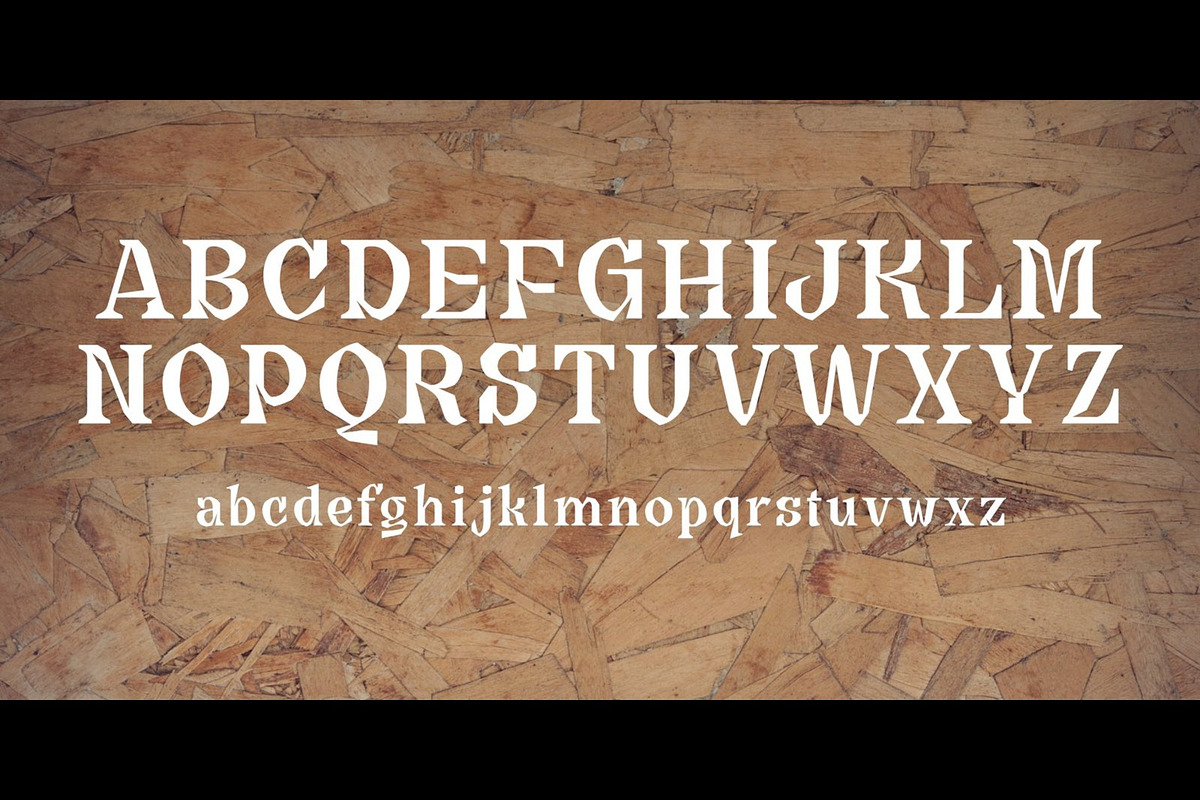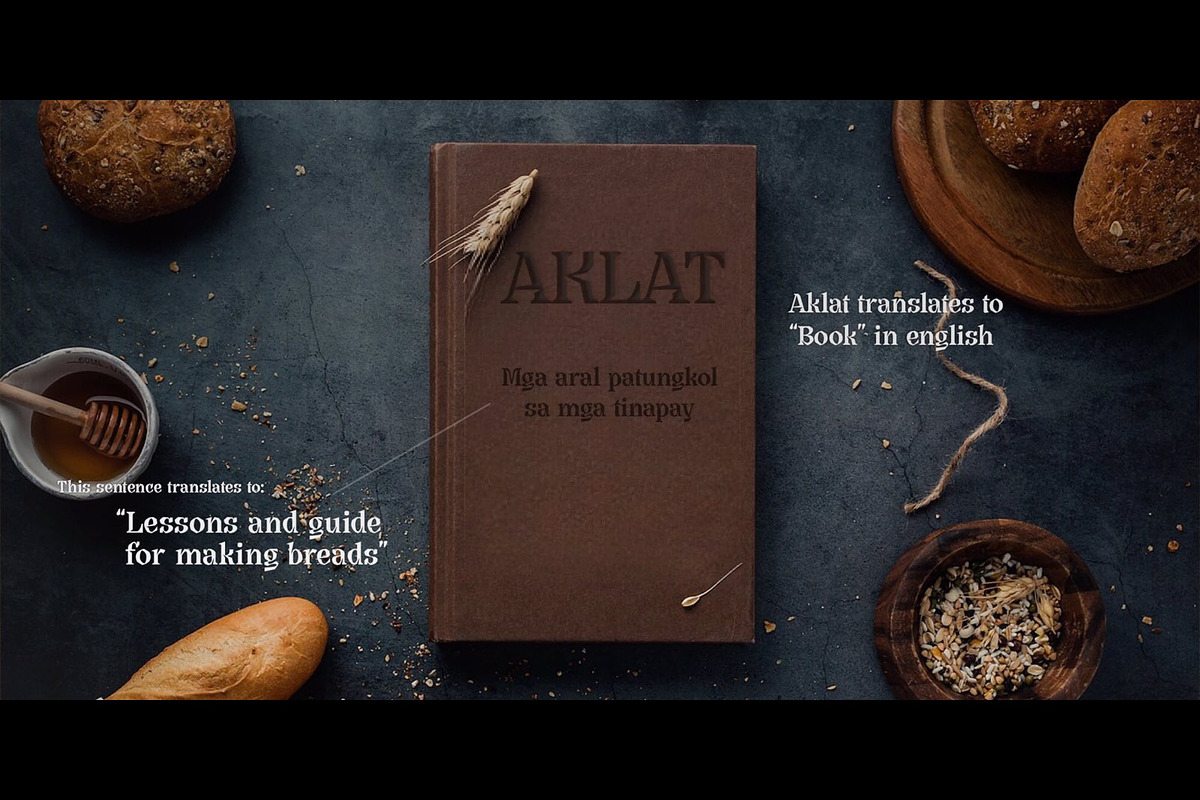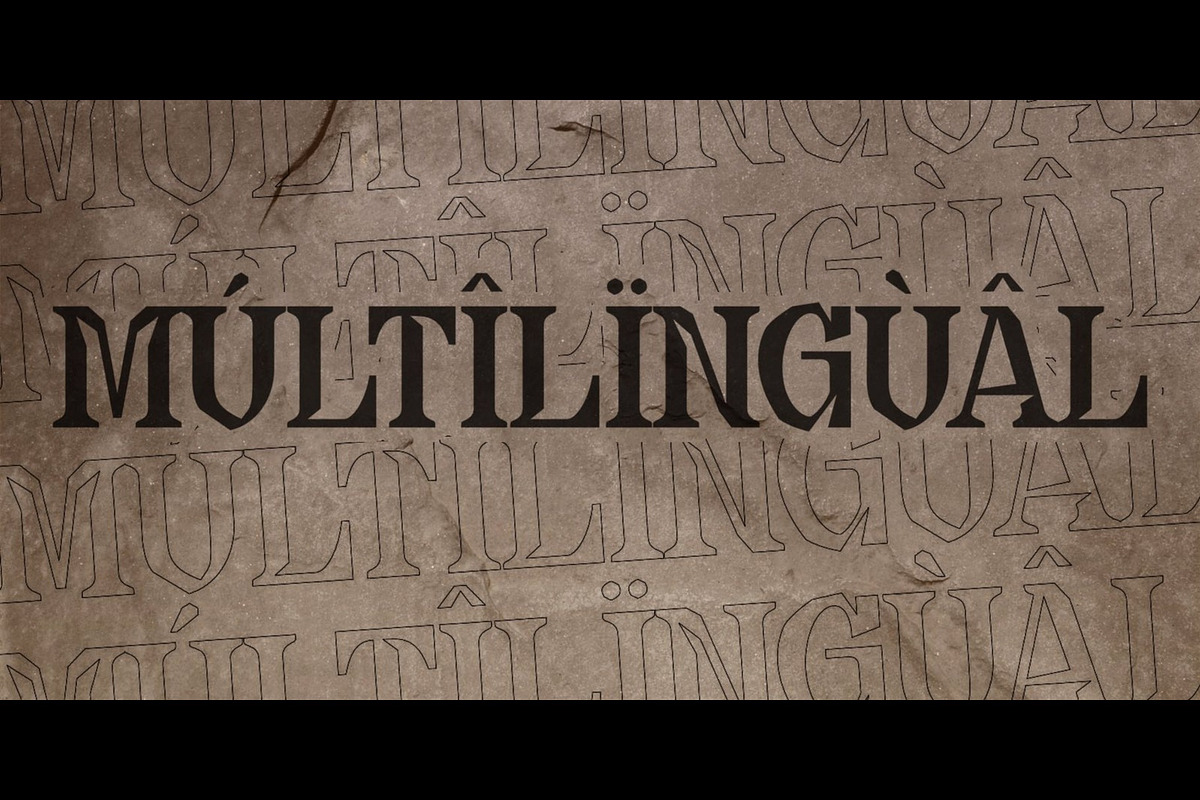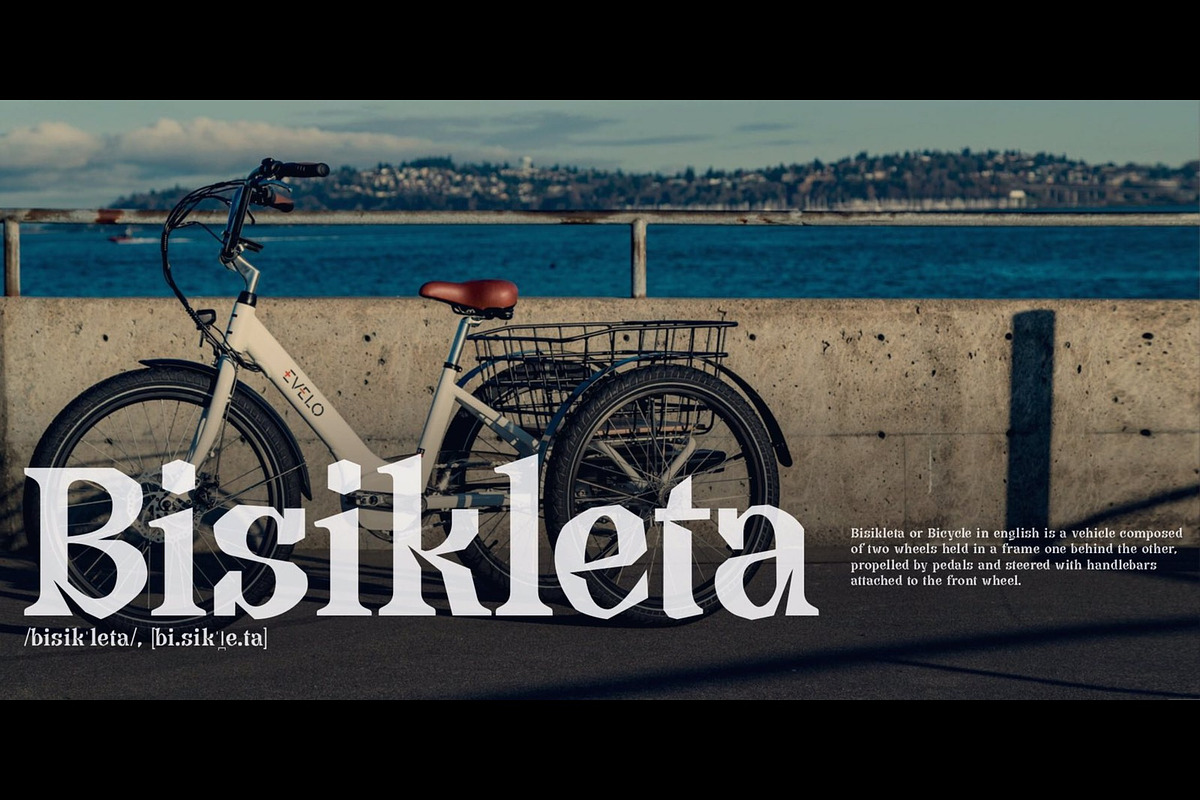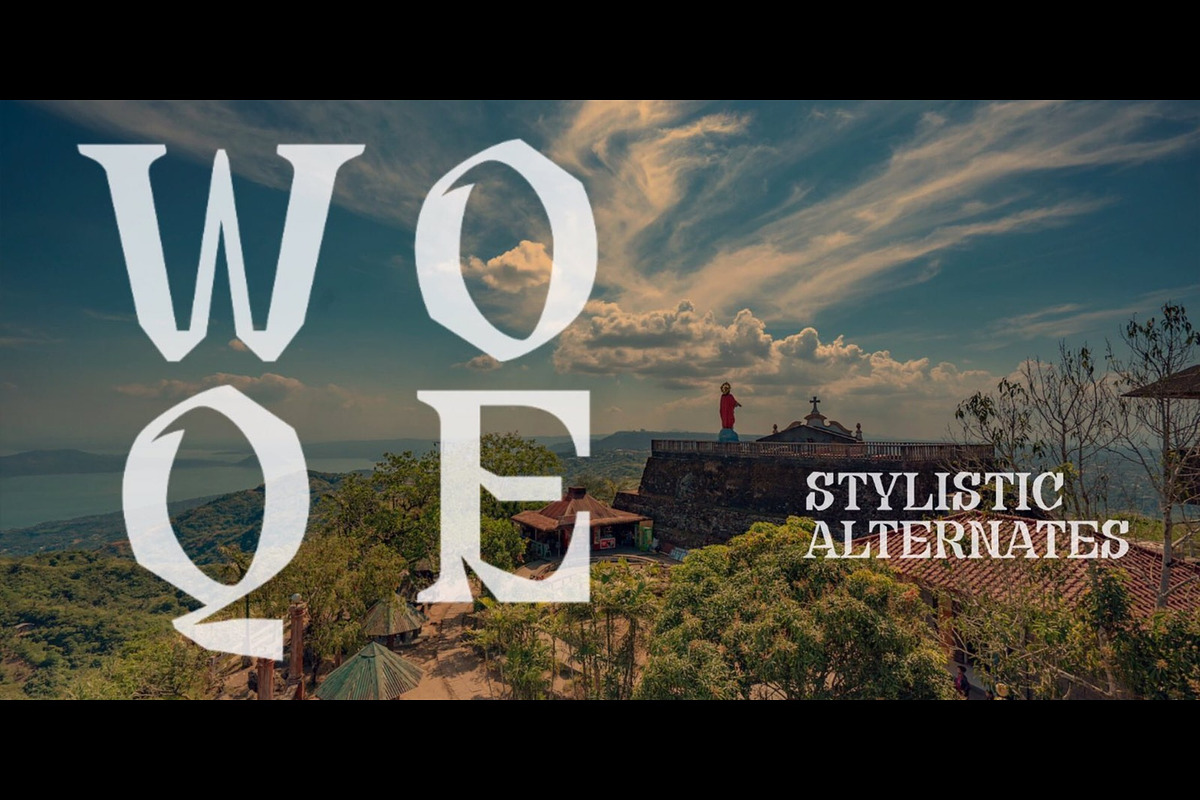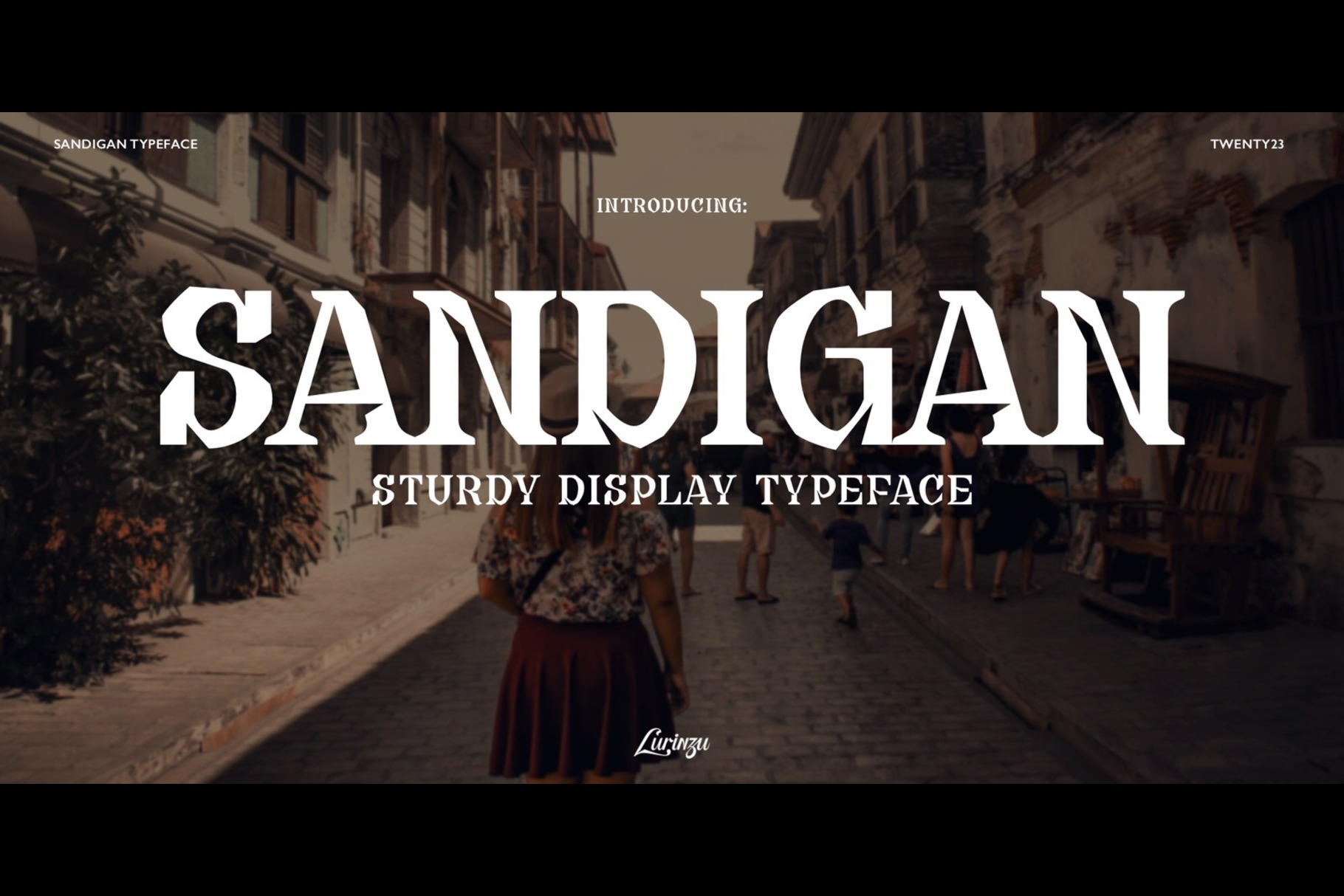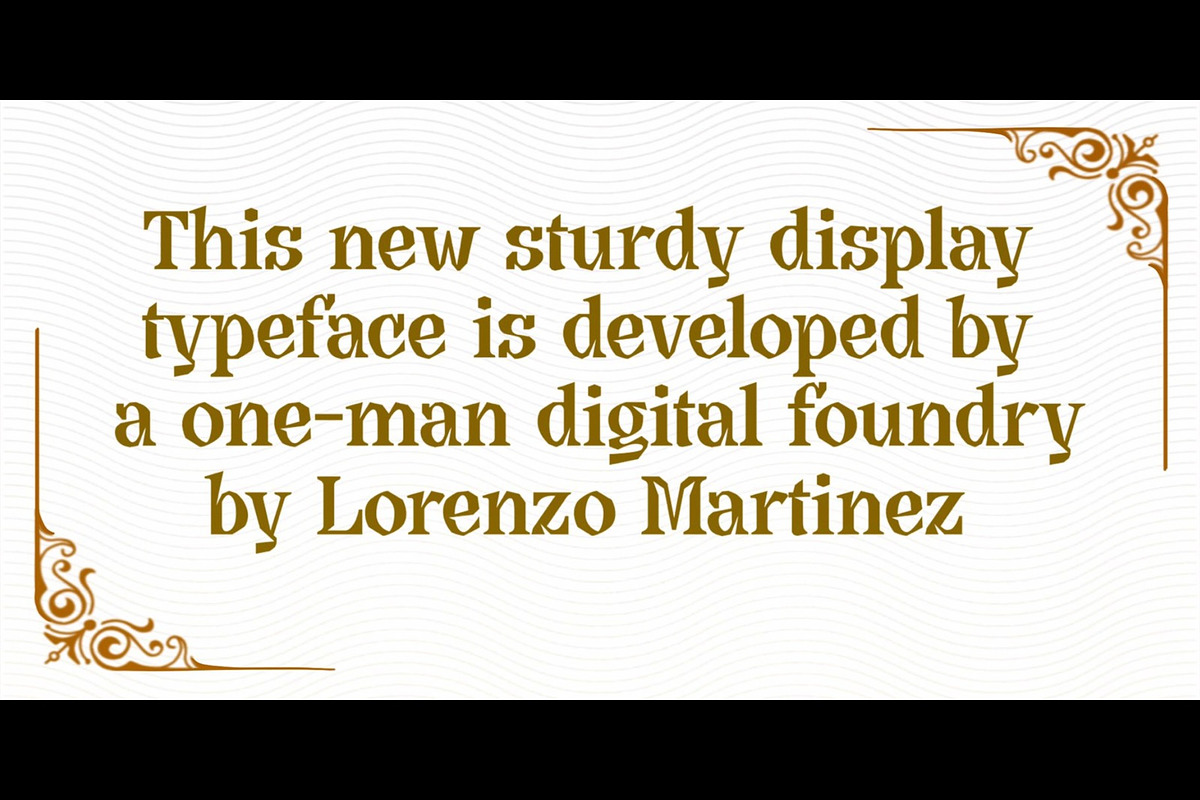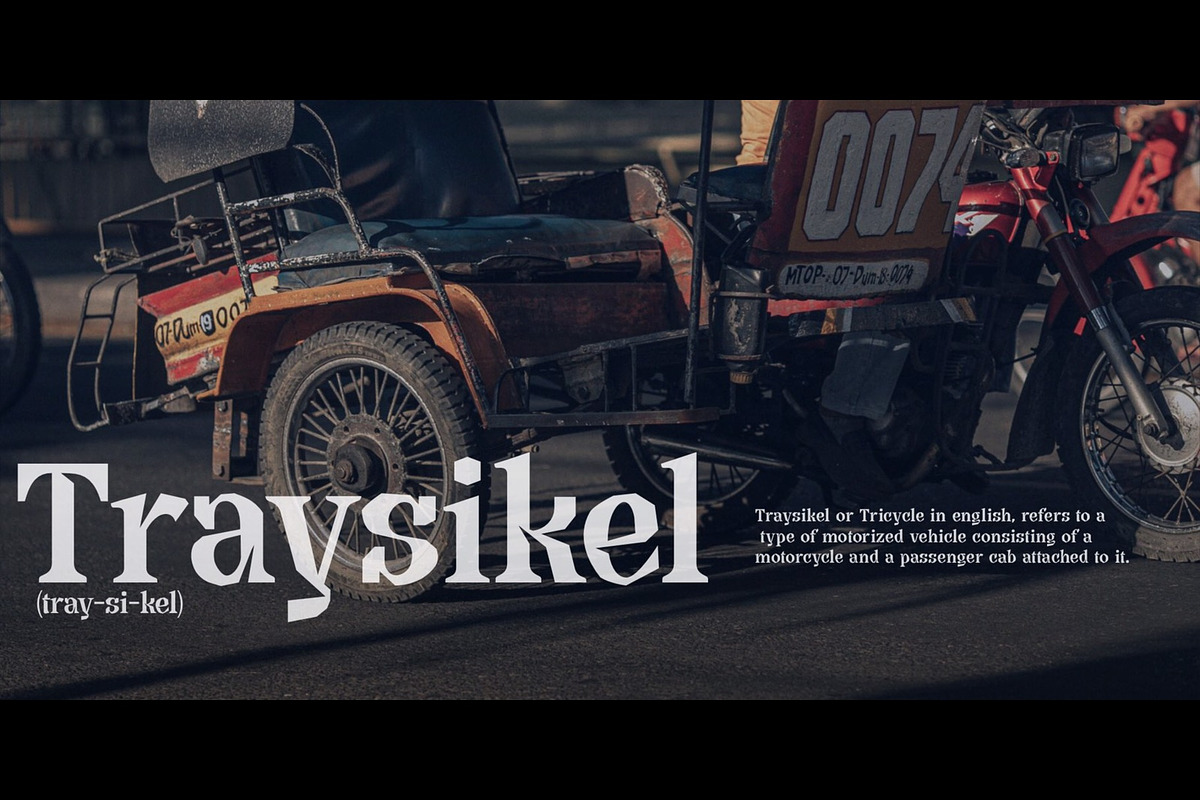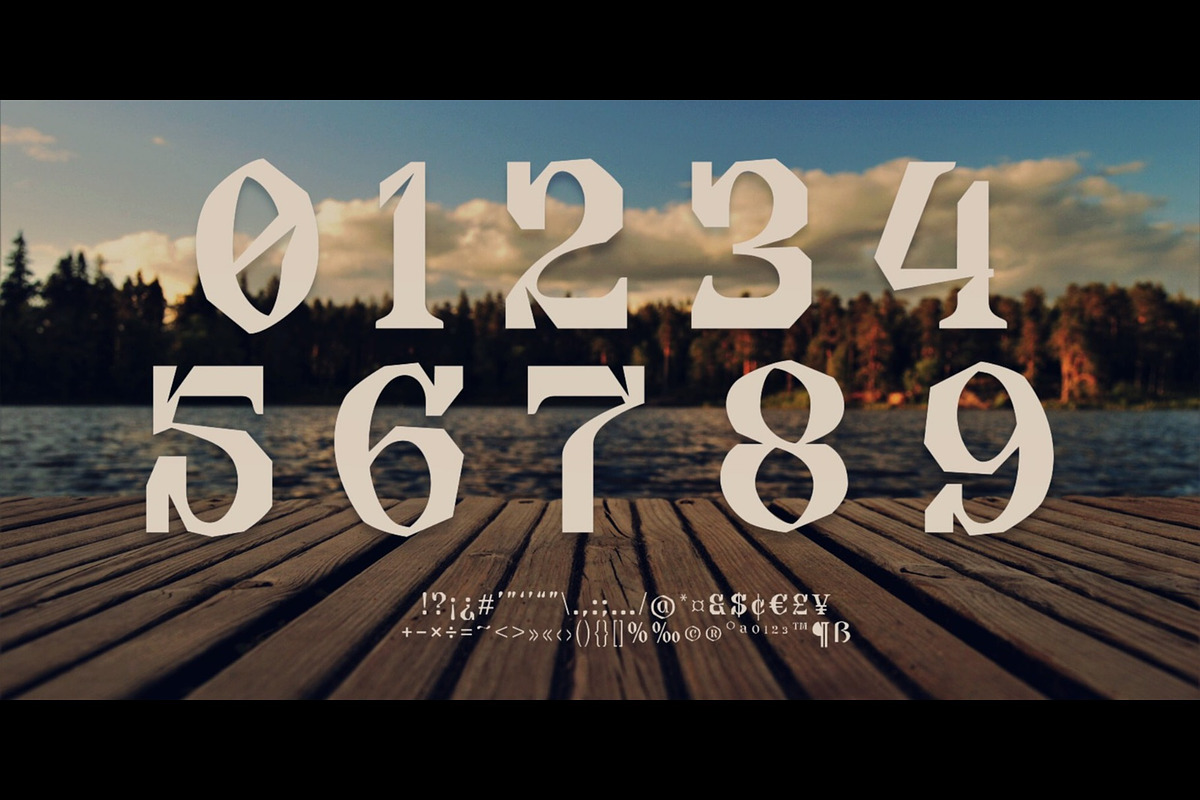
Sandigan-Sturdy Display Typeface
“Sandigan" is a rustic, organic, sturdy, and expressive display typeface that is inspired by the characteristics and vibes of male Filipinos. Sandigan also means "foundation" in English.
This typeface is developed with the intention to be used in display media to fully maximize the stylized shapes of each character. This typeface has been made with the "Filipino- look" in mind hence it also works well with Filipino-themed designs.
Use it as a great solution for your next rustic or vintage theme to your designs, or choose Sandigan for any graphics that require sturdy, trustworthy and authoritative vibe . You may be able to use it in body type as well. (Just not the one with the very small size)
*This font includes letters, numbers, alternates, standard ligatures, multilanguage support, and all essential marks needed.Sandigan – Rustic Filipino-Inspired Display Typeface
Sandigan is a bold and expressive display typeface rooted in Filipino heritage and design sensibilities. The word "Sandigan" translates to "foundation" in English—symbolizing strength, support, and reliability—qualities reflected in every character of this font.
Crafted with rustic charm, organic curves, and a sturdy presence, Sandigan is ideal for projects that demand authenticity, cultural richness, and vintage personality.
Inspired By: The character and spirit of Filipino men—resilient, grounded, and expressive—Sandigan brings a uniquely Filipino aesthetic to the global design space. 🪵 Perfect For:
- Filipino-themed branding and graphics
- Rustic logos and signage
- Organic product packaging
- Heritage-inspired editorial layouts
- Posters, labels, and apparel designs
- Cultural events and tourism campaigns
🔧 Features:
- Uppercase and lowercase letters, and stylistic alternates
- Punctuation and multilingual support
- Display-optimized letterforms
Whether you're designing a logo with soul or creating materials that evoke trust, Sandigan grounds your design in strength, culture, and style.